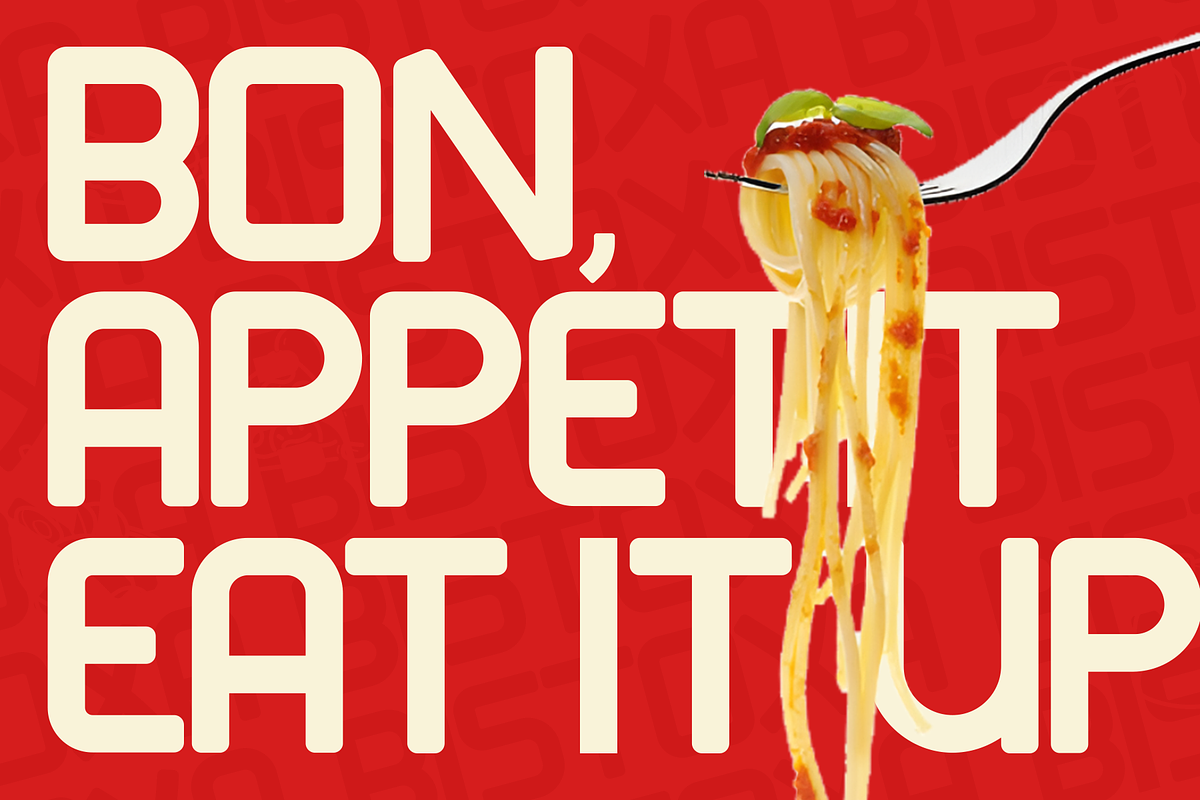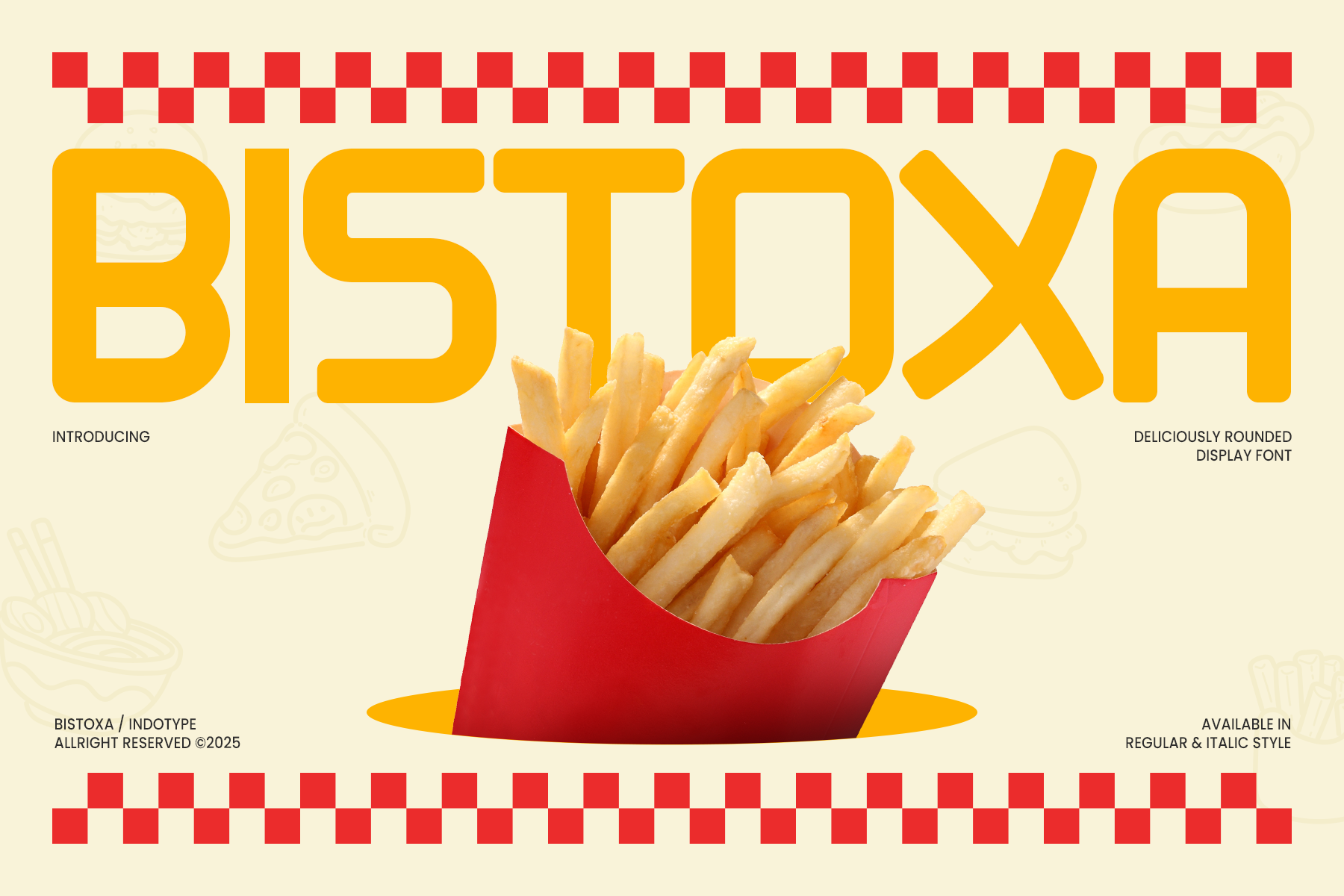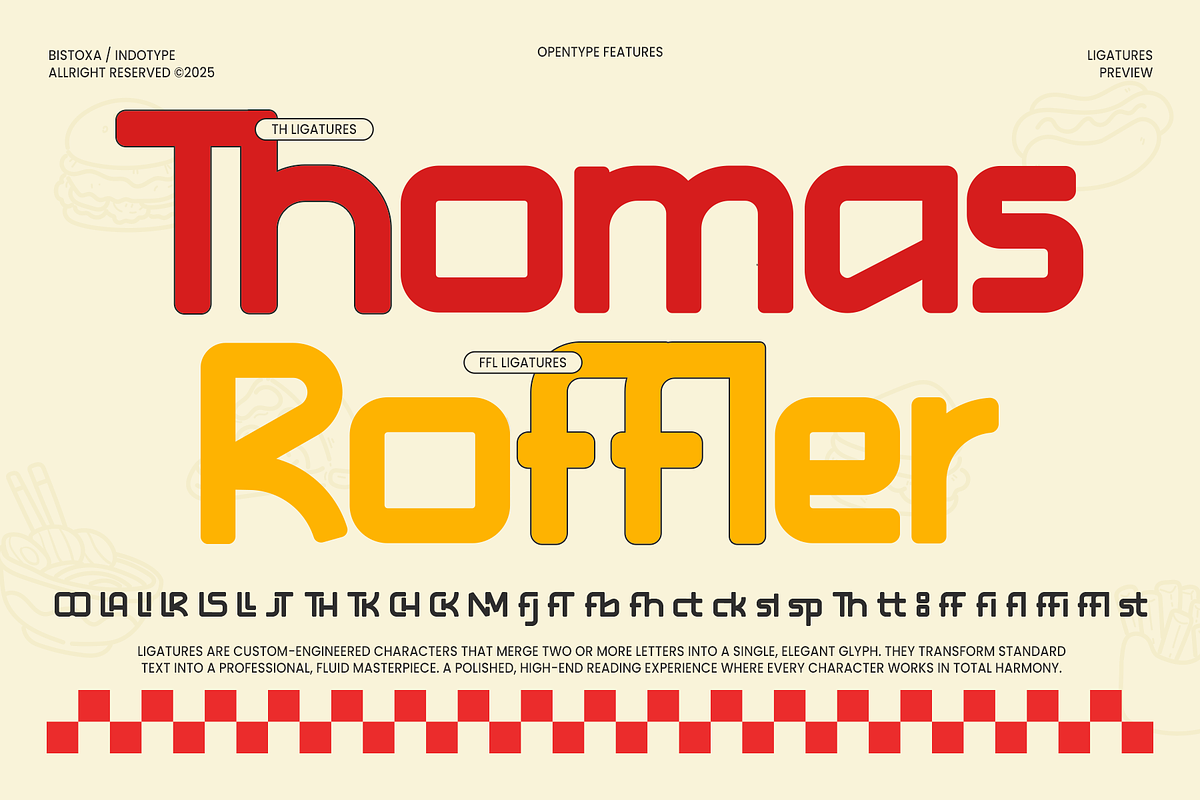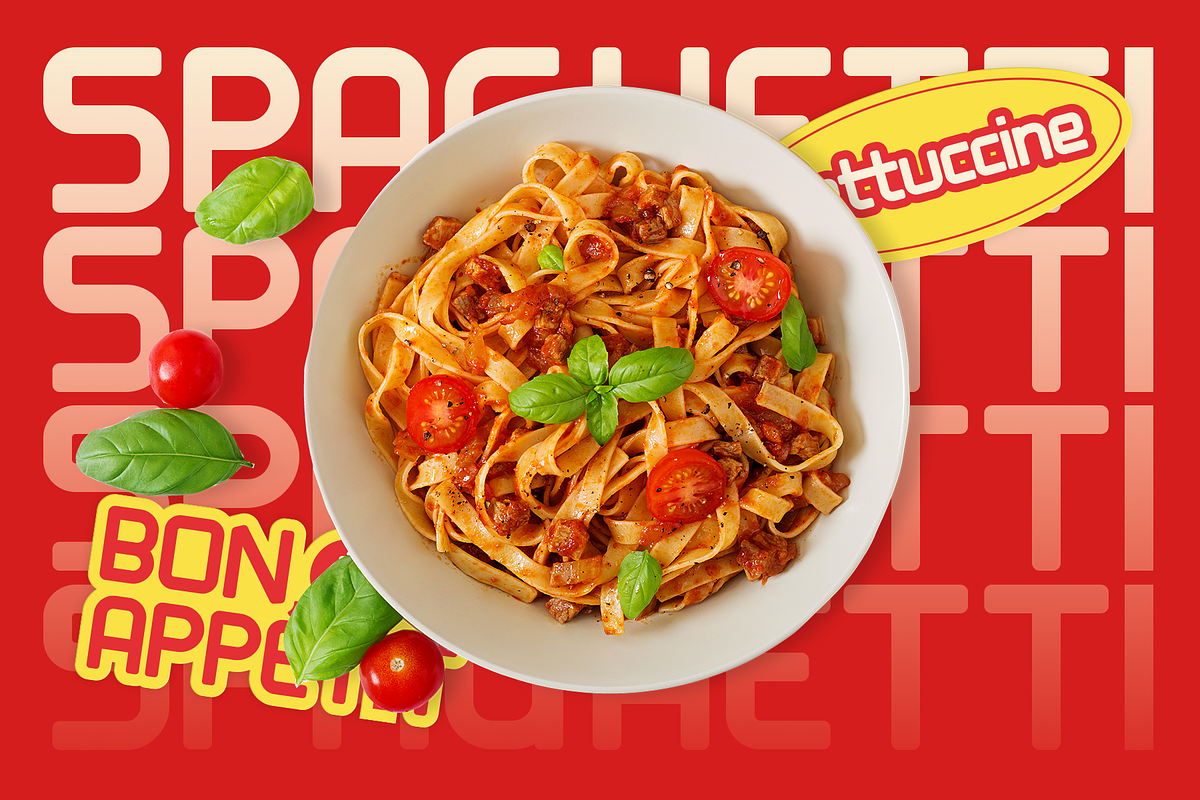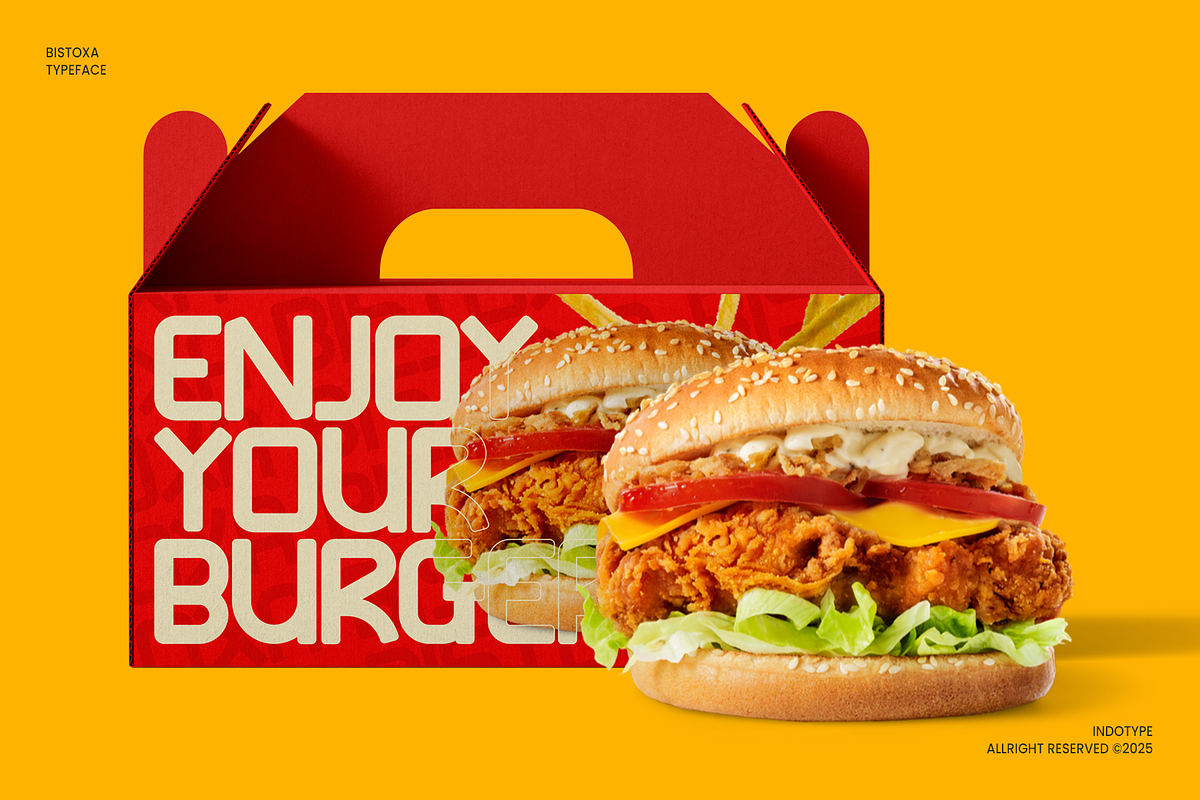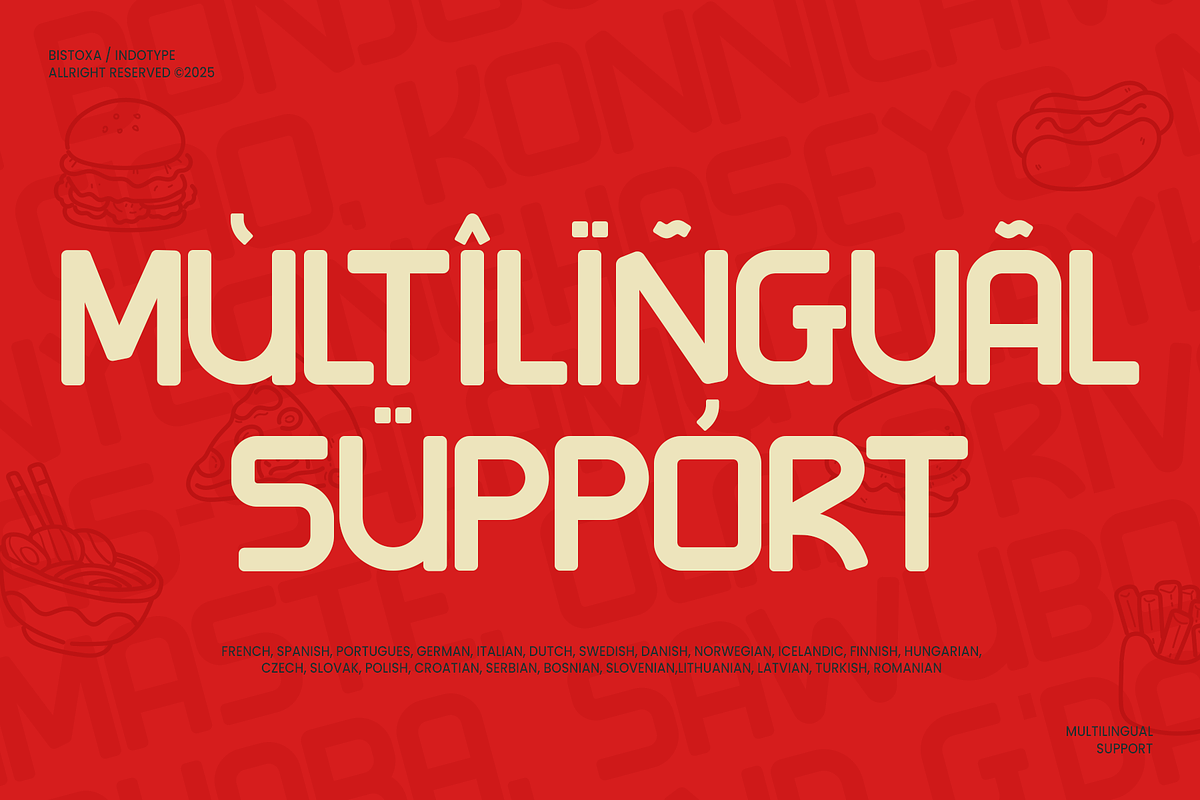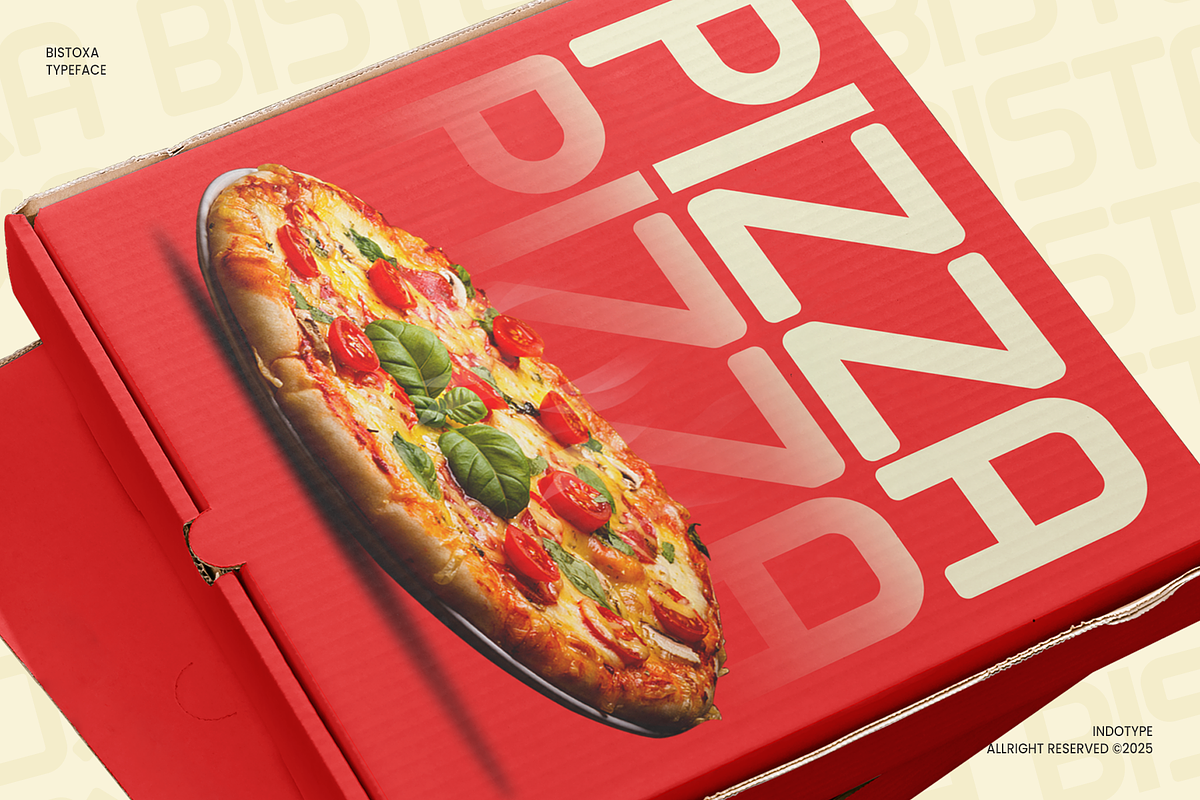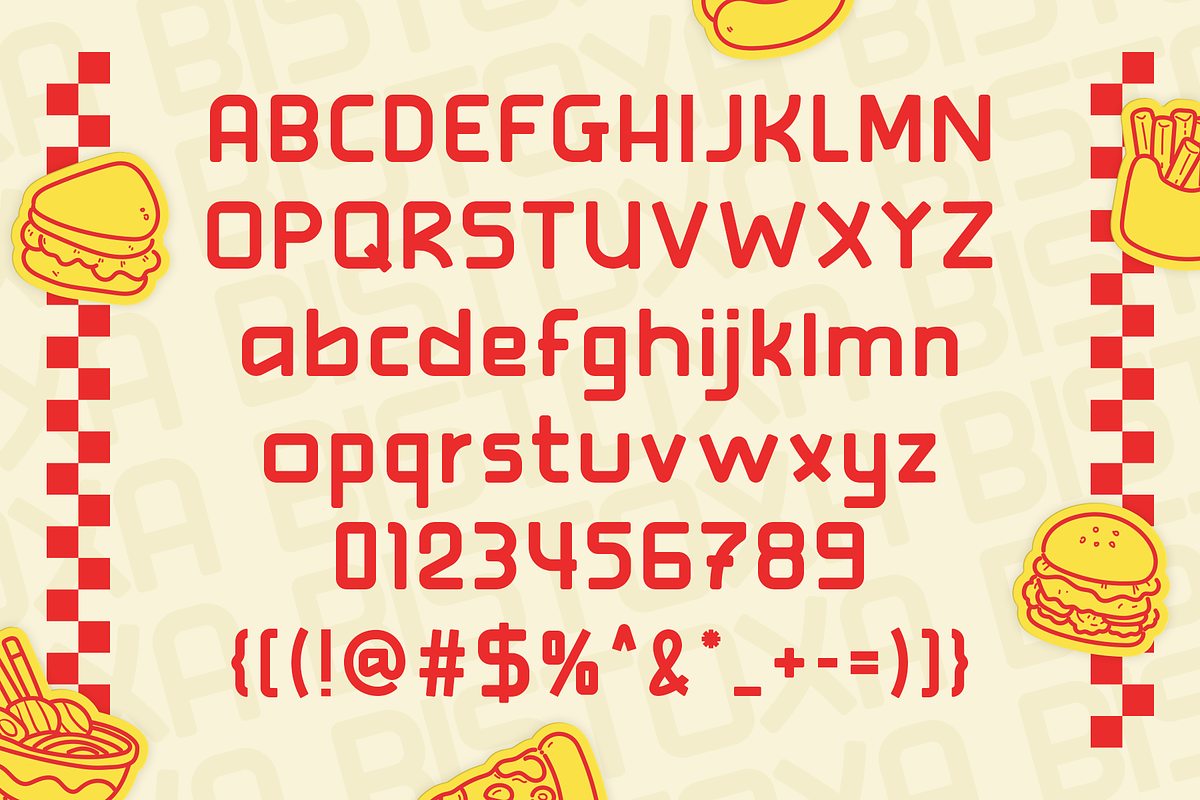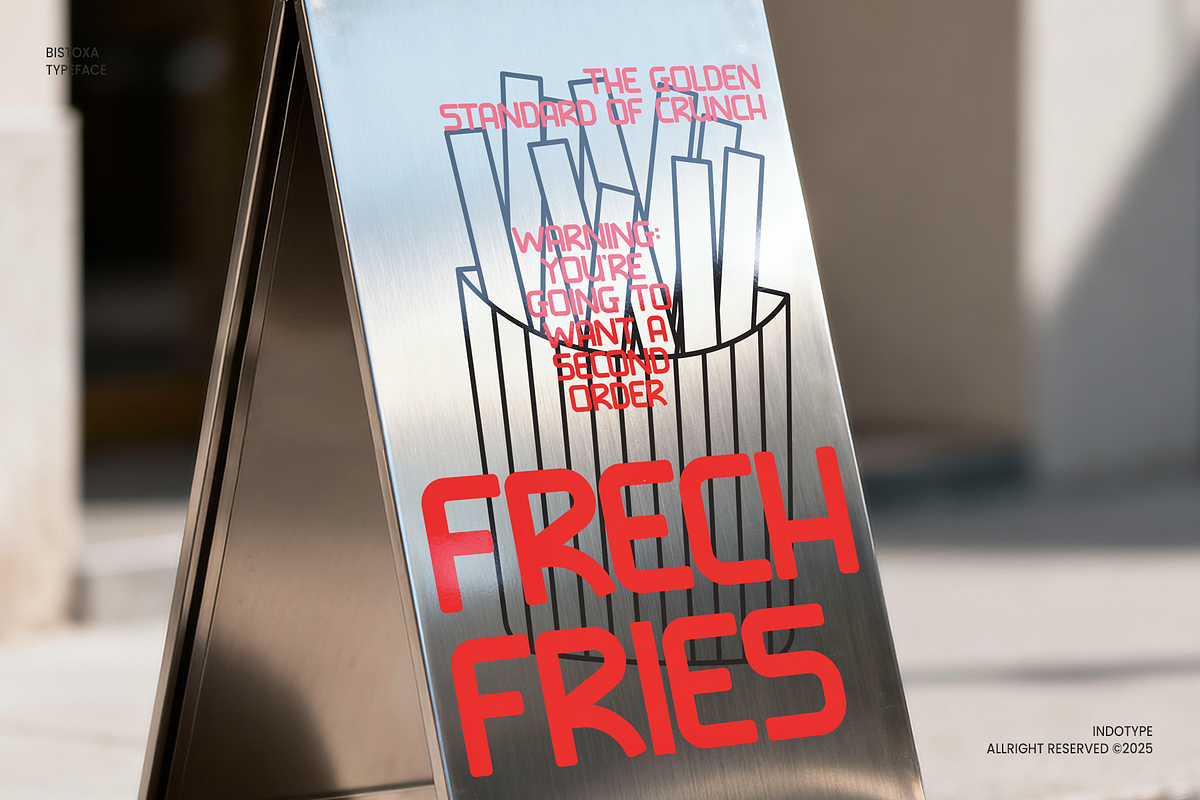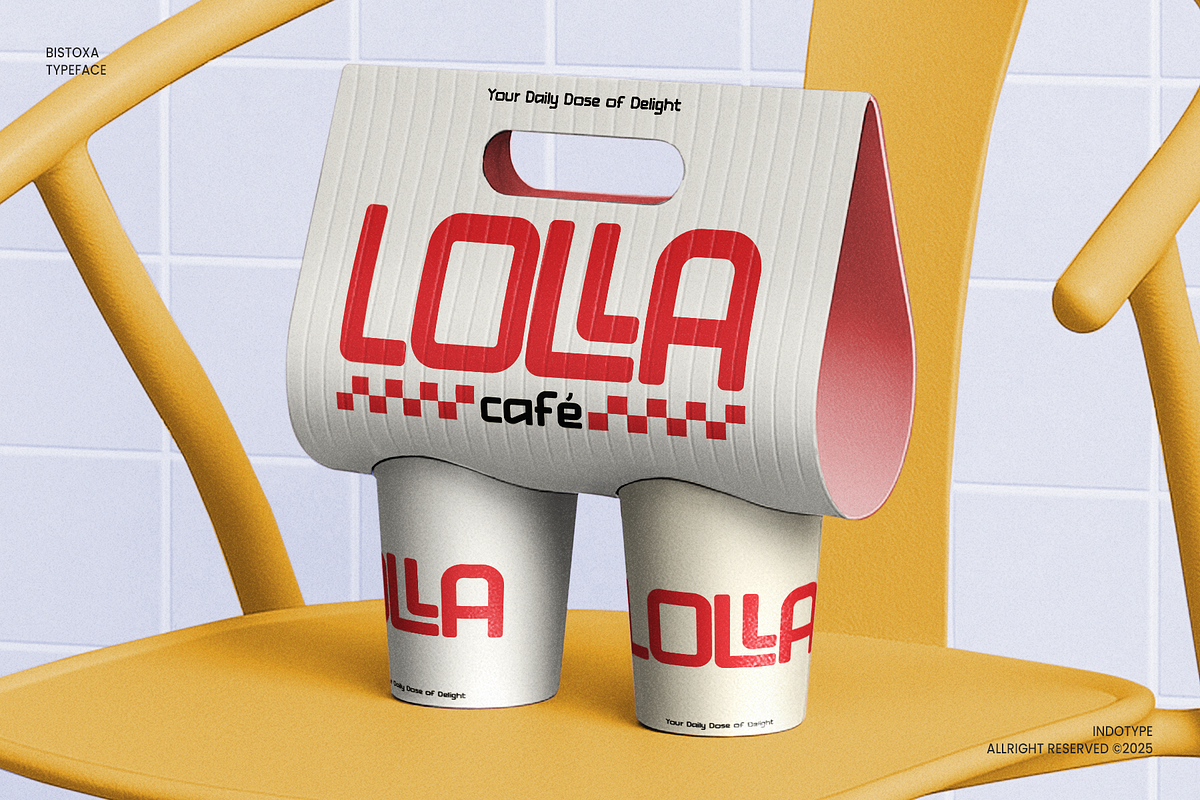
Bistoxa - Food Display Font
Bistoxa is a charming and irresistibly friendly display font defined by its soft, fully rounded terminals and plump, approachable letterforms. This “deliciously rounded” typeface radiates warmth, positivity, and modern playfulness, making it exceptionally versatile for designs that aim to connect, delight, and engage. Its generous curves and open counters ensure outstanding readability and a welcoming visual tone. Available in both a solid Regular and a subtly dynamic Italic style, Bistoxa brings a touch of joyful character to any project. Perfect for brands targeting families, children, food products, lifestyle content, and tech with a human touch, Bistoxa transforms simple messages into inviting visual experiences. It’s the typographic equivalent of a smile—simple, effective, and universally appealing.
- Ideal for: Family & Kids Brands, Food & Beverage Packaging, Lifestyle Blogging, App UI for Wellness, Friendly Logos, Social Media Graphics.
- Classification: Sans-Serif, Display, Rounded, Geometric.
- Attributes: Friendly, Playful, Warm, Modern, Approachable, Soft, Inviting.